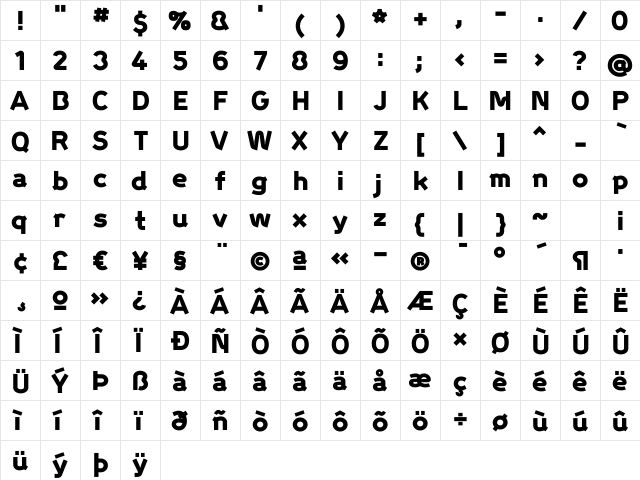
ProgressBlack Regular
Design Context for ProgressBlack Typeface
ProgressBlack is a composed and adaptable typeface that performs quietly and consistently across a wide range of design contexts.